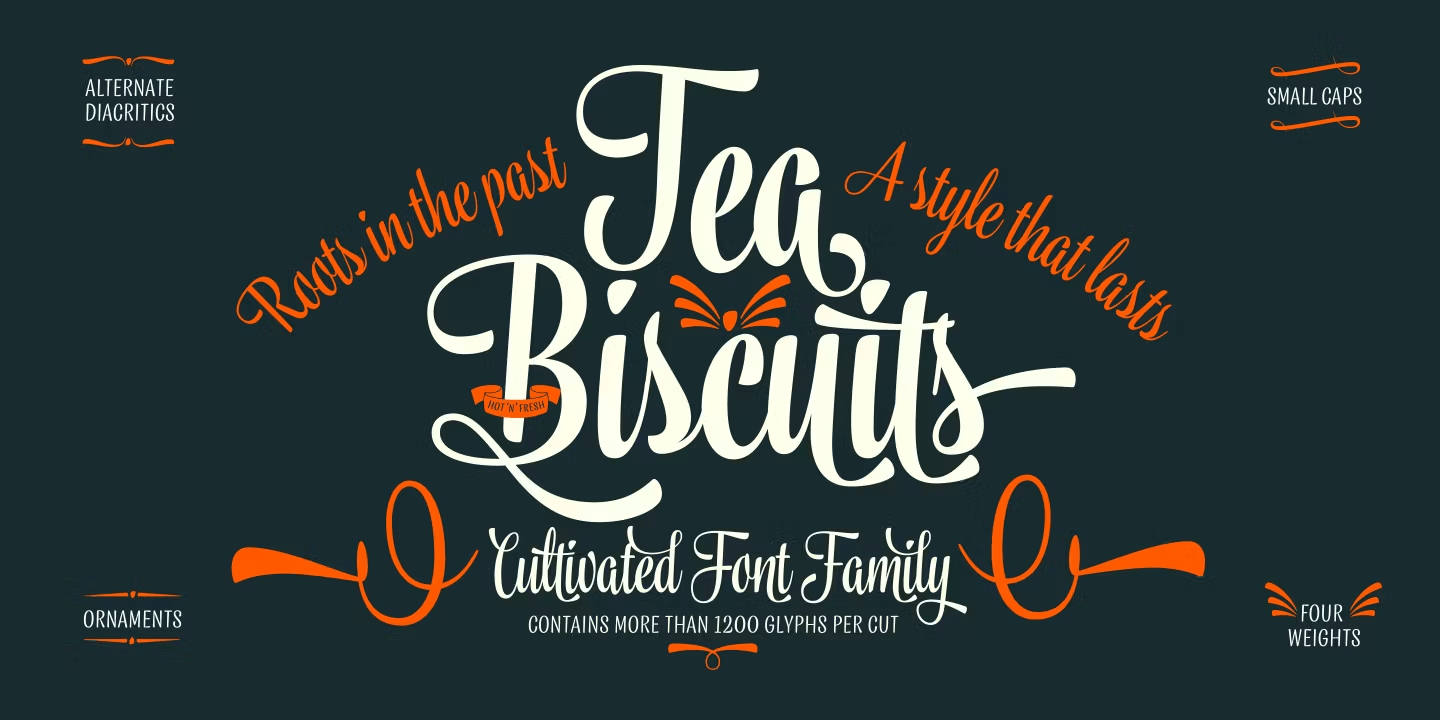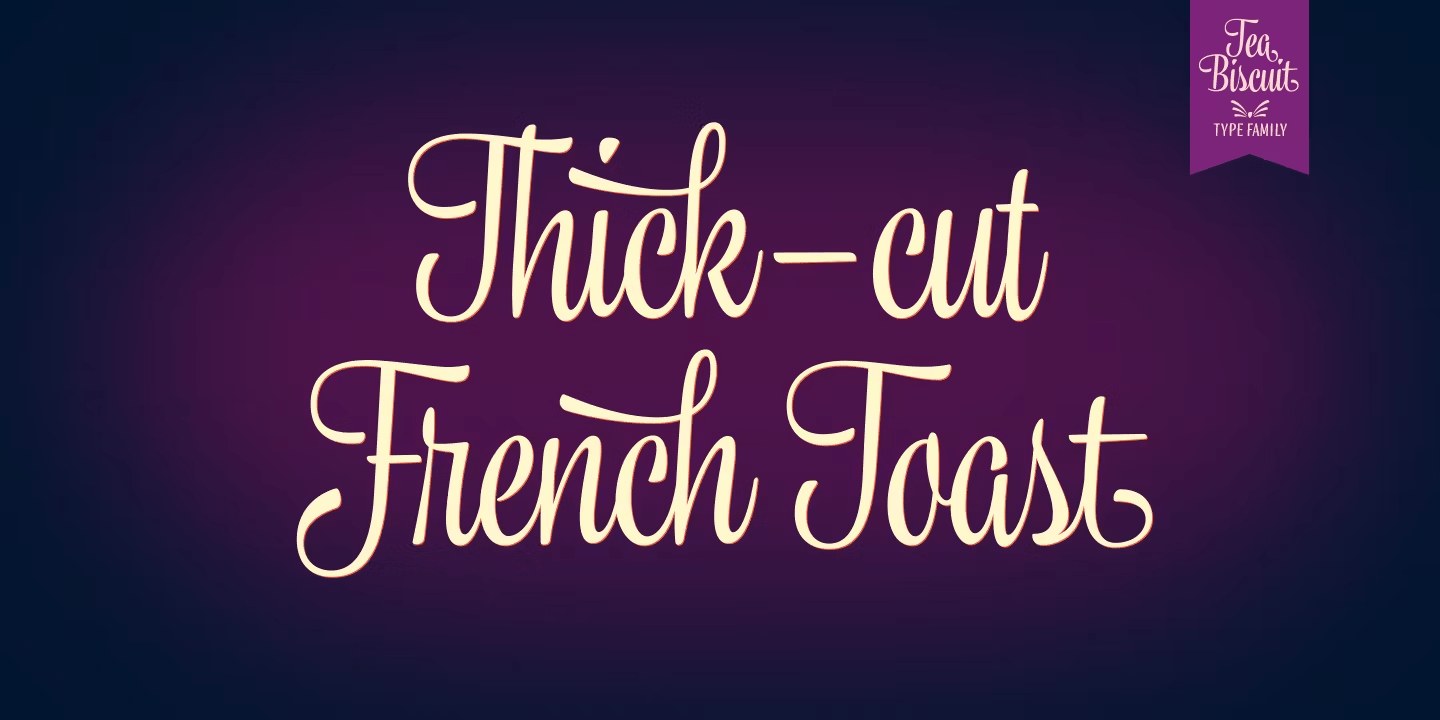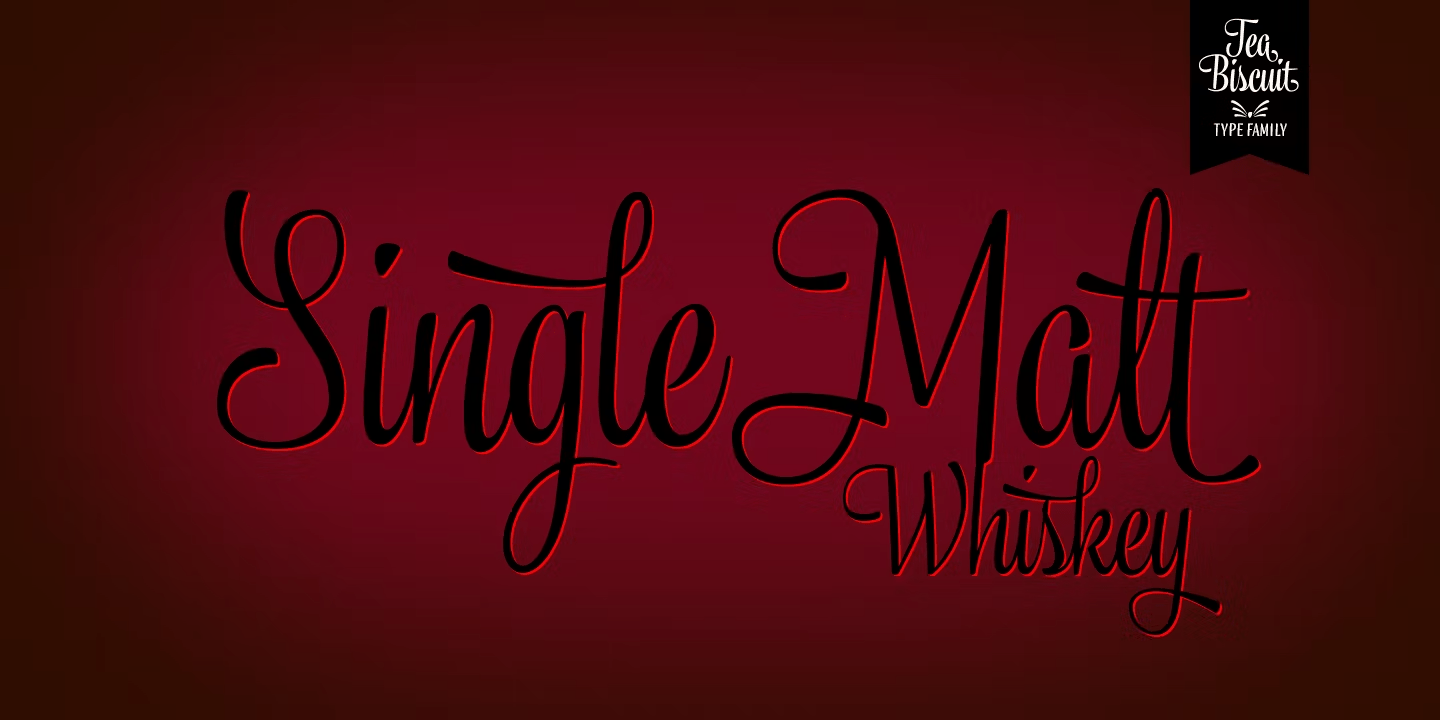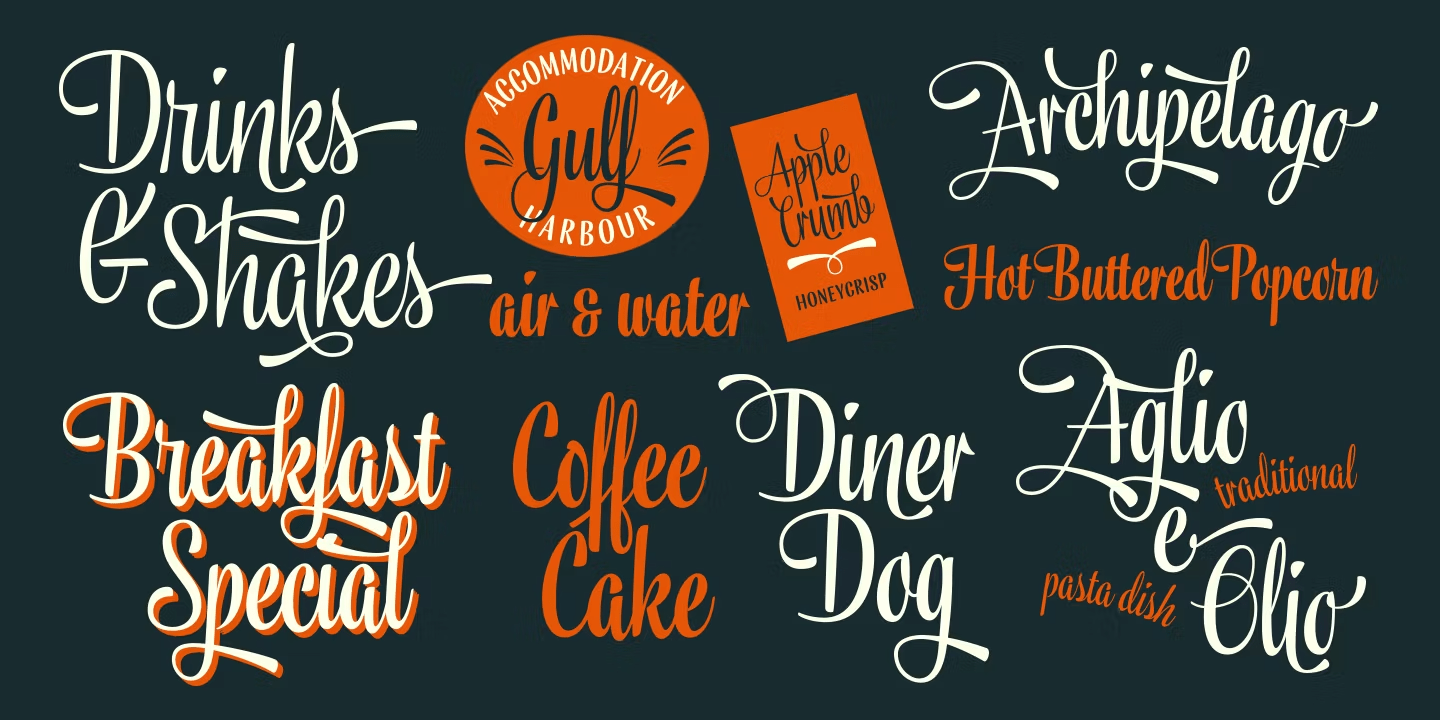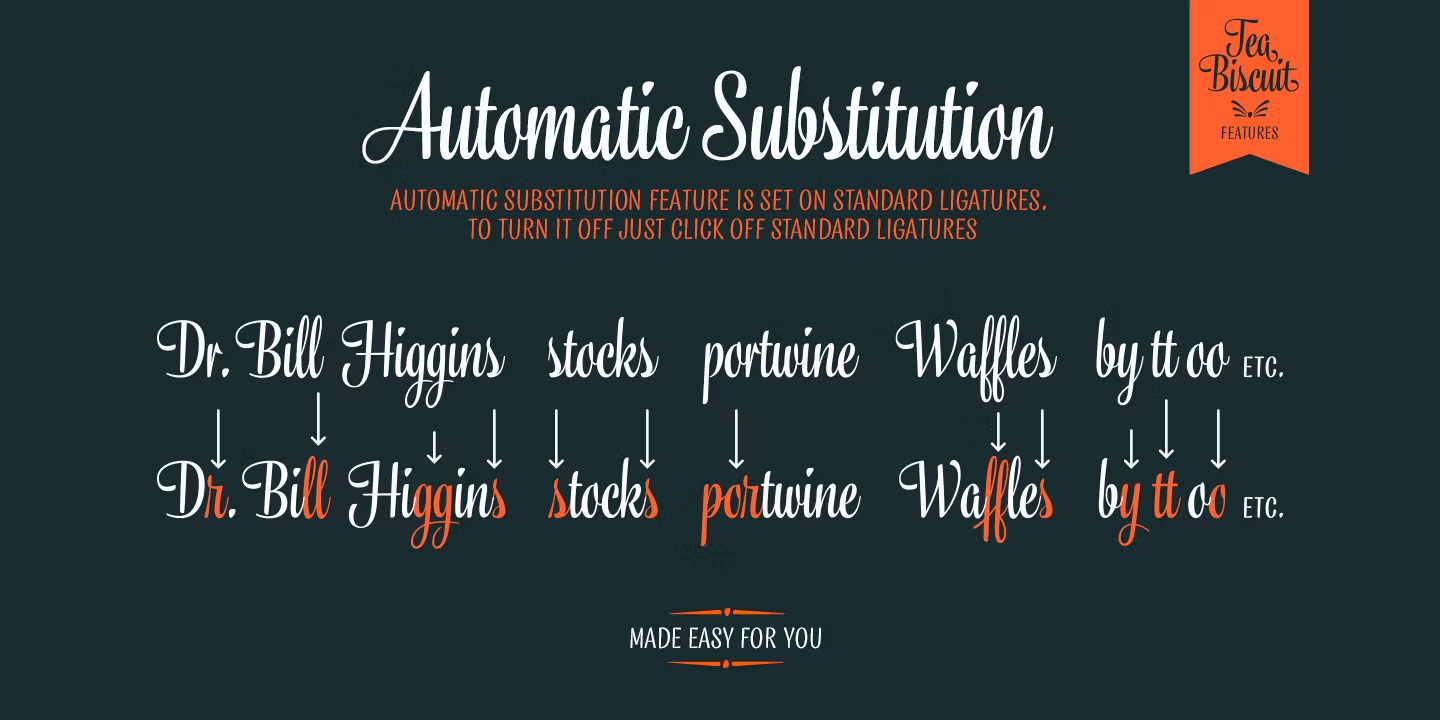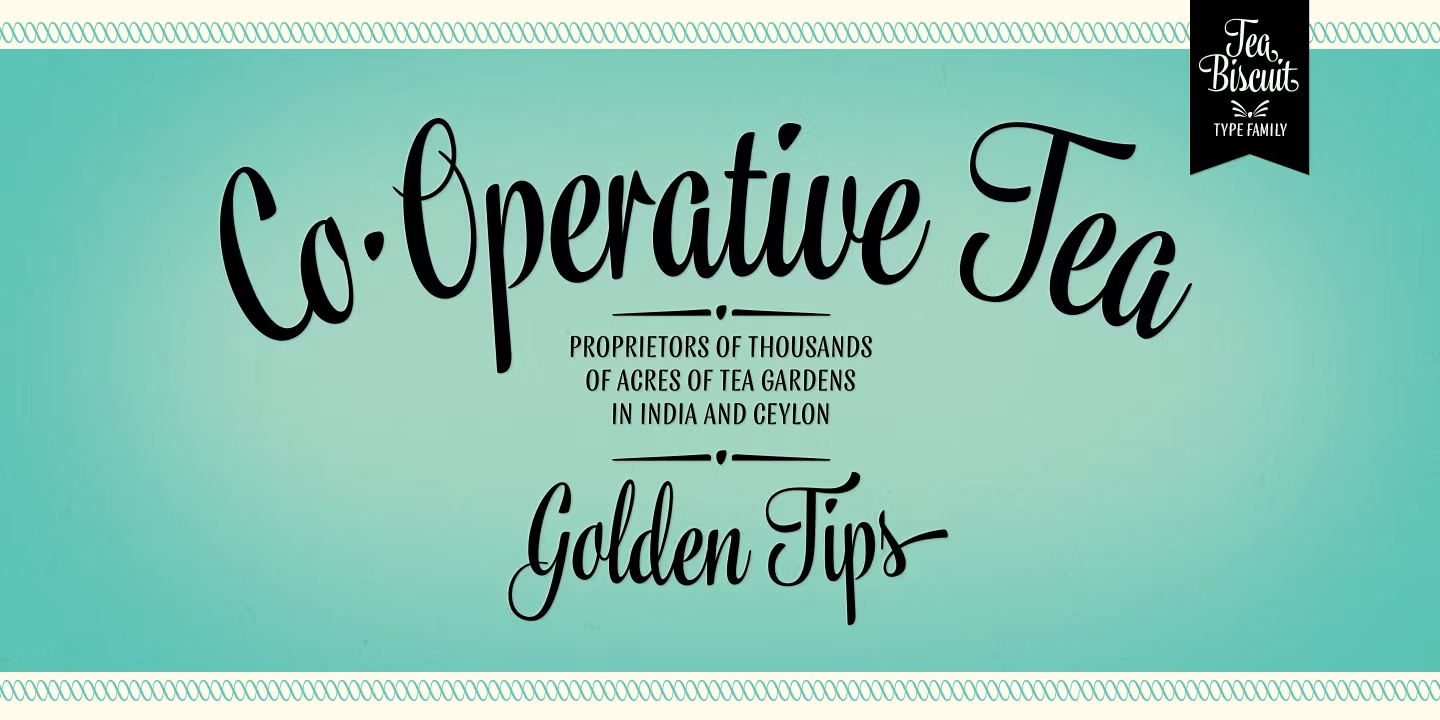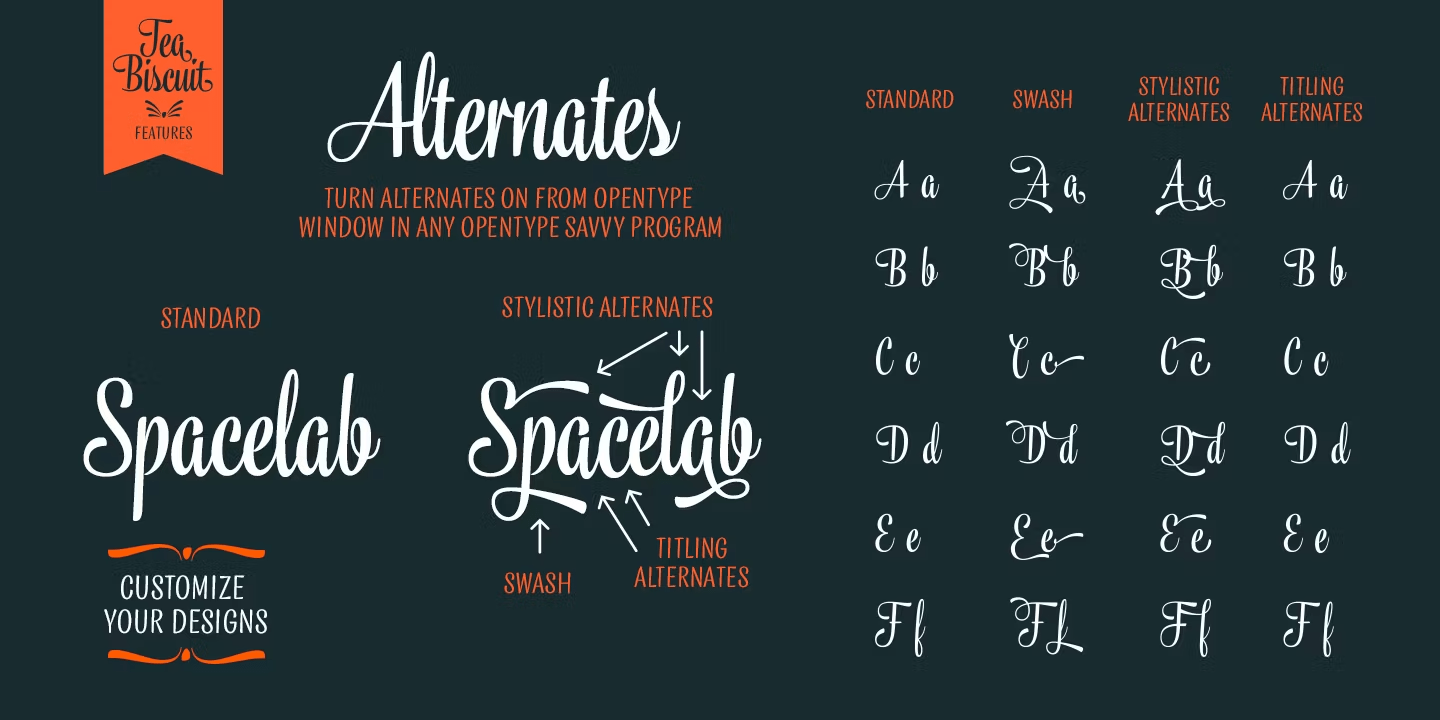
Tea Biscuit
Tea Biscuit is a classy upright script family with it roots in the past. It's inspired by hand lettering of the 1950s but finished with a modern, smooth appearance.
The Tea Biscuit Family contains four weights, each of which contains more than 1200 glyphs, to fulfil the tasks of modern design challenges while retaining a customised look.
Tea Biscuit is equipped with plenty of features to achieve a custom designed look. When the Standard Ligatures function is on, the font automatically chooses different letterforms on the fly, depending on which characters appear first.
For a bit of extra flavour, turn on Swash, Stylistic or Titling Alternates in any OpenType savvy program for even more extra swirls and swashes.
The Tea Biscuit family comes with a set of matching Ornaments to support your designs. In addition, Small Caps are included within the fonts: a complete set of frisky block letters that can be used on their own or to support the Script font.